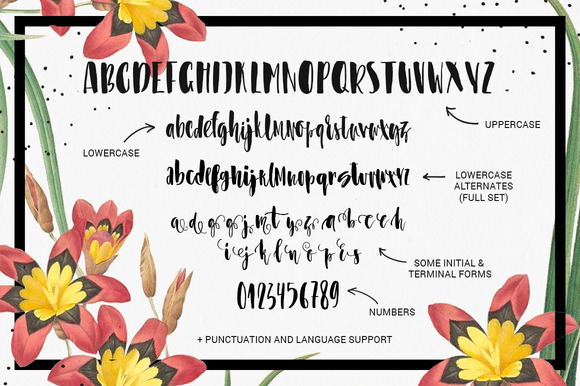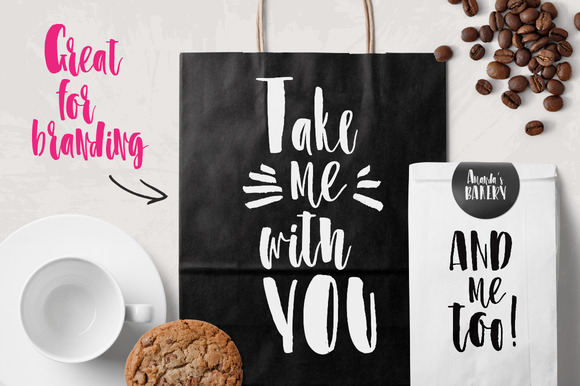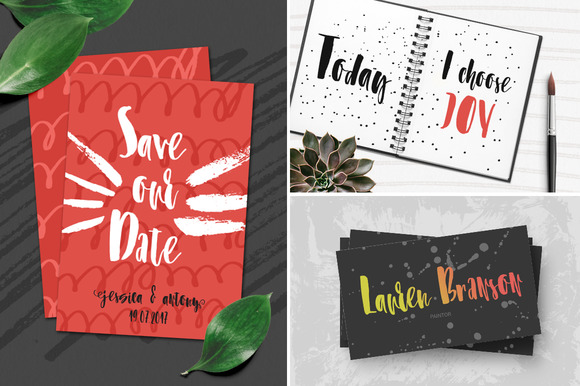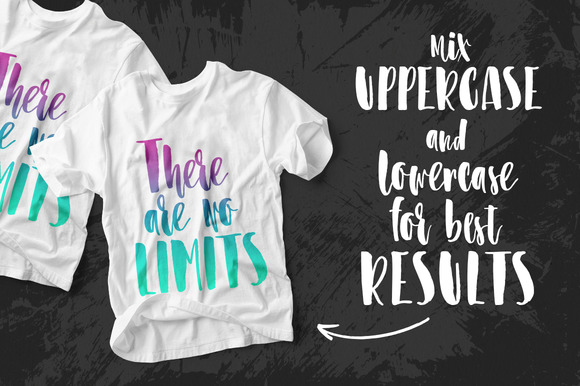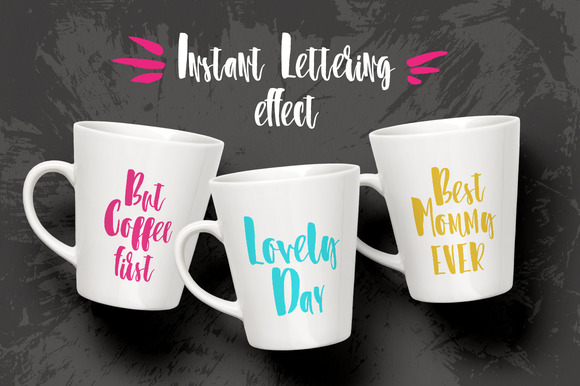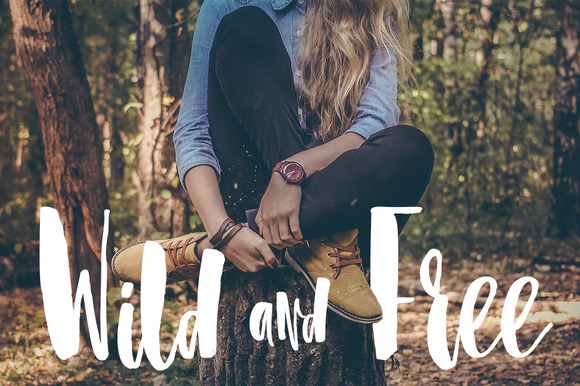
The Perfect Springtime Font: Asparagus Font
Have you ever been brainstorming a new design project and suddenly, inspiration strikes? Maybe it’s the color palette, the layout, or the typography – whatever it is, it can be the spark that sets your creative juices flowing. For designers, finding that perfect font can make all the difference. And, trust us, we’ve found it in the Asparagus Font – a fun, playful brush font that’s sure to add some springtime charm to your next project.
This friendly font is perfect for designers looking to add a touch of whimsy to their designs. Whether you’re creating a logo, a menu, or a social media post, the Asparagus Font is sure to bring a smile to your face and a spring to your step. Its unique character makes it a valuable addition to any designer’s toolkit, and we can’t wait to see how you’ll use it to bring your designs to life.
- Unique Characteristics: Asparagus Font features a unique blend of modern and traditional elements, with intricate details and subtle textures that evoke a sense of elegance and sophistication.
Asparagus Font Review
Overall, I think the Asparagus Font is a unique and visually appealing choice for designers looking to add some personality to their projects. ✨ The font’s bold, hand-drawn aesthetic works well for headings and titles, and the script-like flourishes add a touch of elegance.
- It’s a great choice for food-related branding, packaging, or advertising.
- The font is highly legible, even at smaller font sizes.
- It’s available in a variety of weights, making it suitable for a range of design applications.
However, there are a few limitations to consider. ⚠️ The font’s irregular letterforms may not be suitable for text-heavy content or body copy, as they can be difficult to read in large quantities. Additionally, the font’s quirky feel may not be to everyone’s taste.
Overall, I think the Asparagus Font is a solid choice for designers who want to add some personality to their work. While it may not be suitable for every project, it’s a great option for those looking to create a unique and eye-catching visual identity.
The Asparagus Font is a great choice for:
- Food and drink branding
- Celebration and party invitations
- Wedding stationery and decorations
For optimal results, use the Asparagus Font in conjunction with bright, pastel colors and playful graphics.